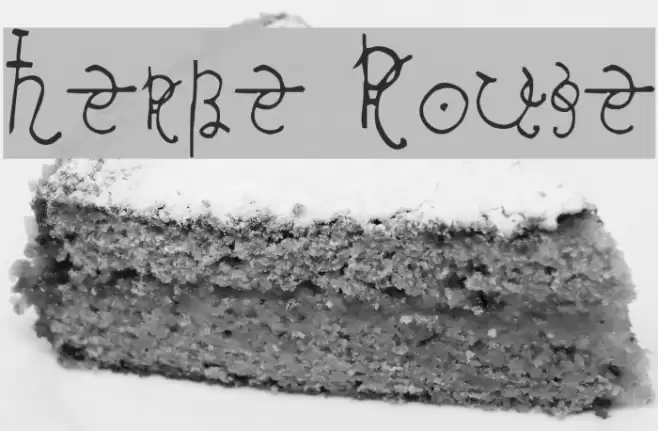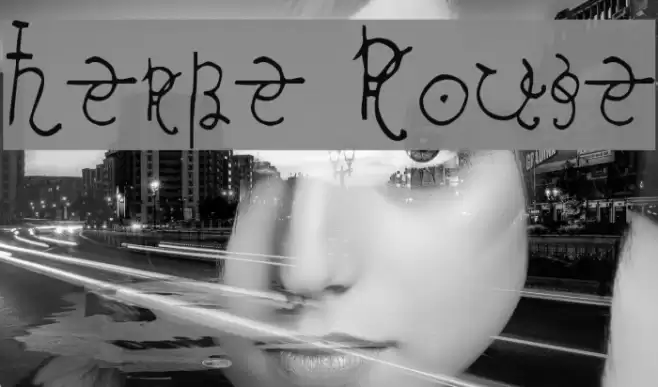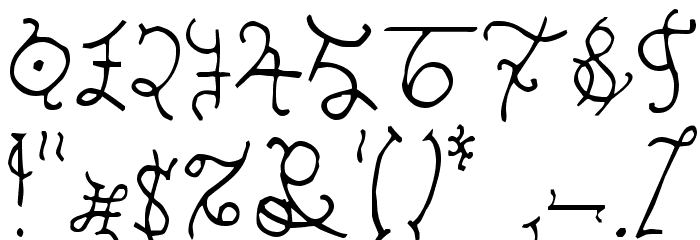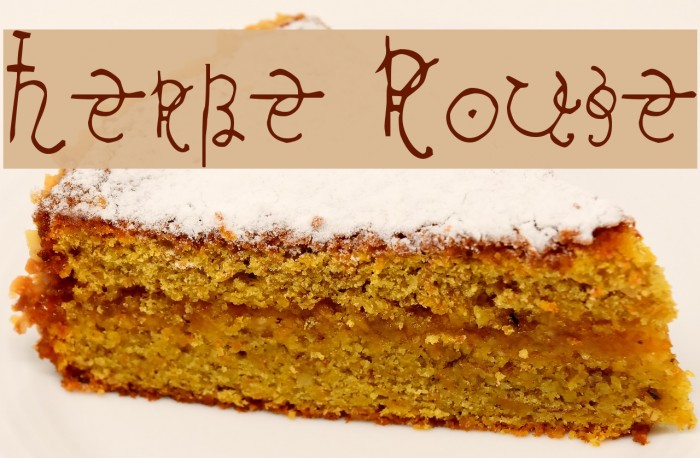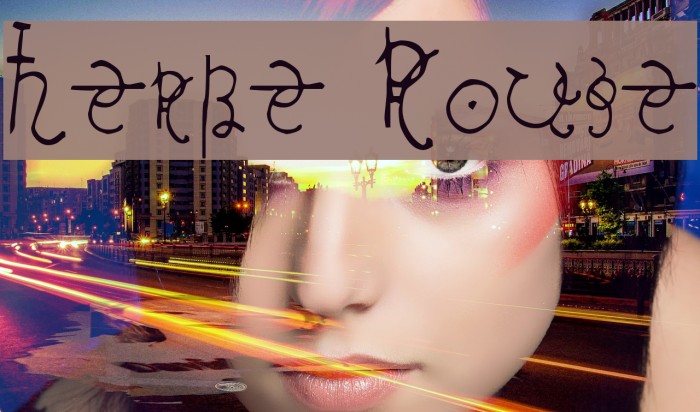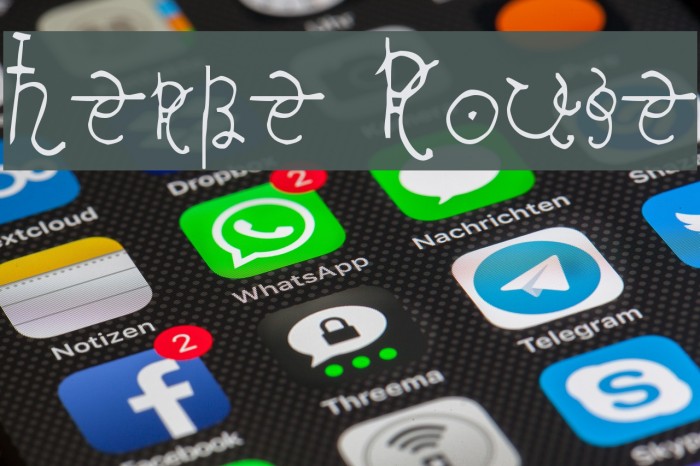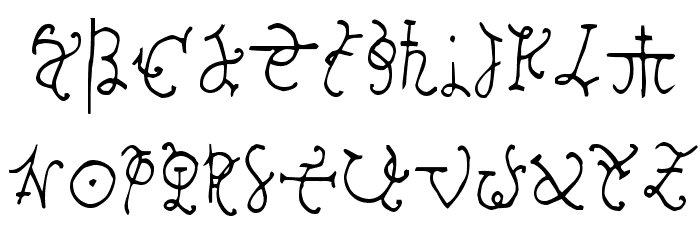
Herbe Rouge Font
Herbe Rouge Description
This font features a highly decorative and artistic style, characterized by its intricate and swirling letterforms. Each character is uniquely crafted with elaborate curves and loops, giving it a whimsical and almost mystical appearance. The font maintains a consistent flow throughout, with each letter seamlessly connecting to the next. The overall design is reminiscent of ancient scripts or calligraphy, making it suitable for projects that require a touch of elegance and creativity. The special characters are equally ornate, adding to the font's distinct personality.
An artistic and decorative font with intricate, swirling letterforms from Kids fonts.
- Proposed Projects: Ideal for fantasy-themed designs, book covers, invitations, and artistic posters.
- Use Case: Logos, Headlines, Artistic projects